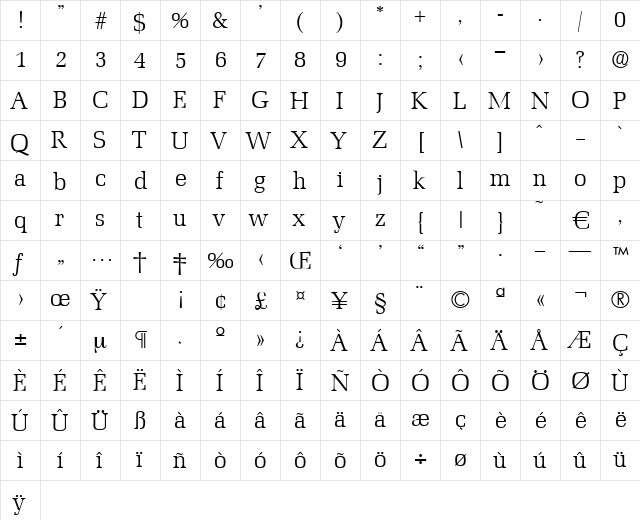
Marseille-Light Regular
Design Context for Marseille-Light Typeface
Marseille-Light takes a measured approach to typography — its balanced proportions and neutral character make it a reliable workhorse for both digital and print work. Its slender proportions lend an understated elegance to any composition.